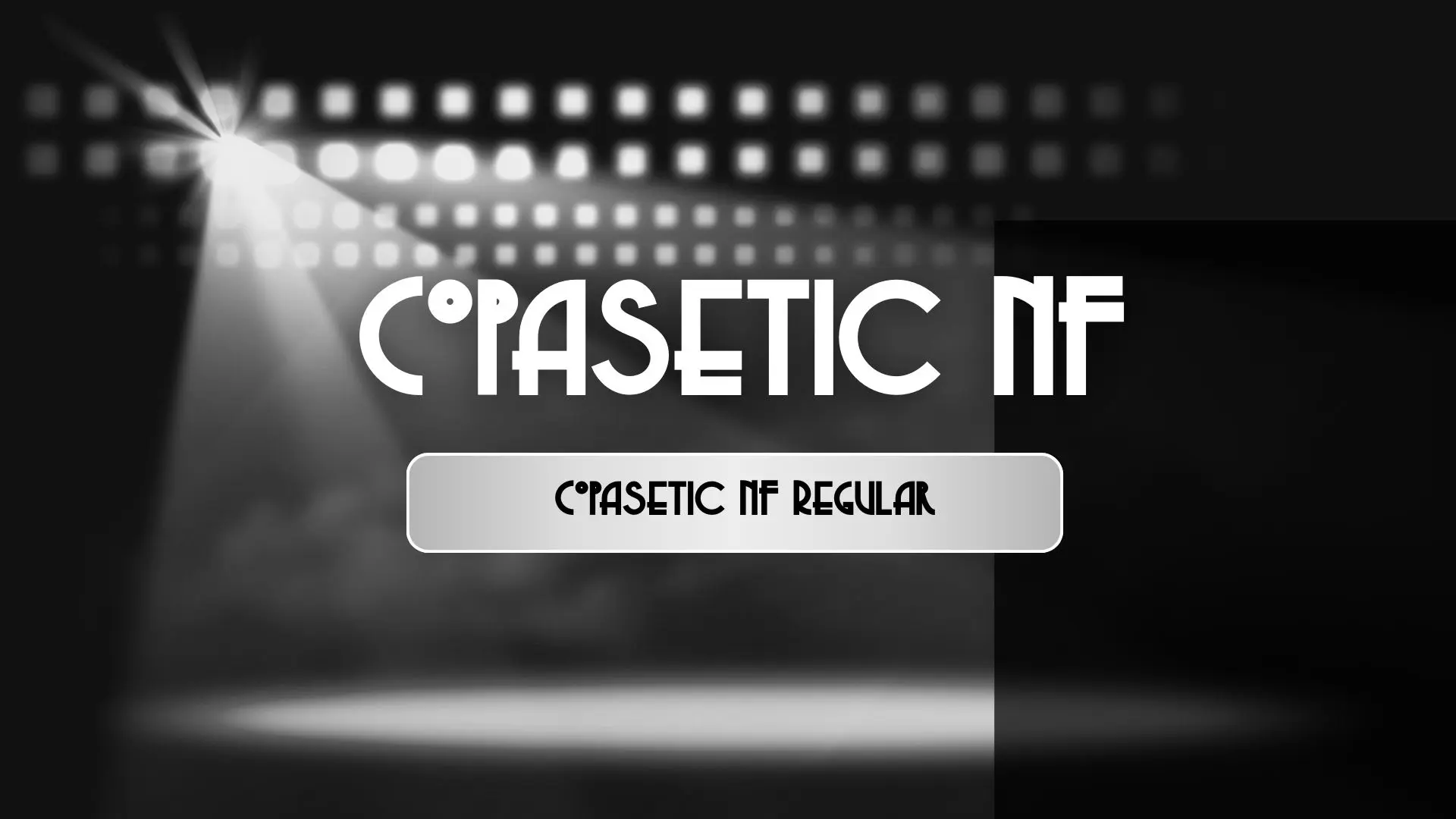
The font Copasetic NF Regular, designed by Nick Curtis, falls under the Display category & Copasetic NF font family. Its smooth, flowing letterforms make it a versatile choice for projects that require both elegance and readability. Copasetic NF is particularly well-suited for Branding, Logo, Poster, Social media graphics, Event flyers, Decorative Titles and Book covers. With its balance of simplicity and decorative appeal, this font brings a polished touch to both personal and professional designs.